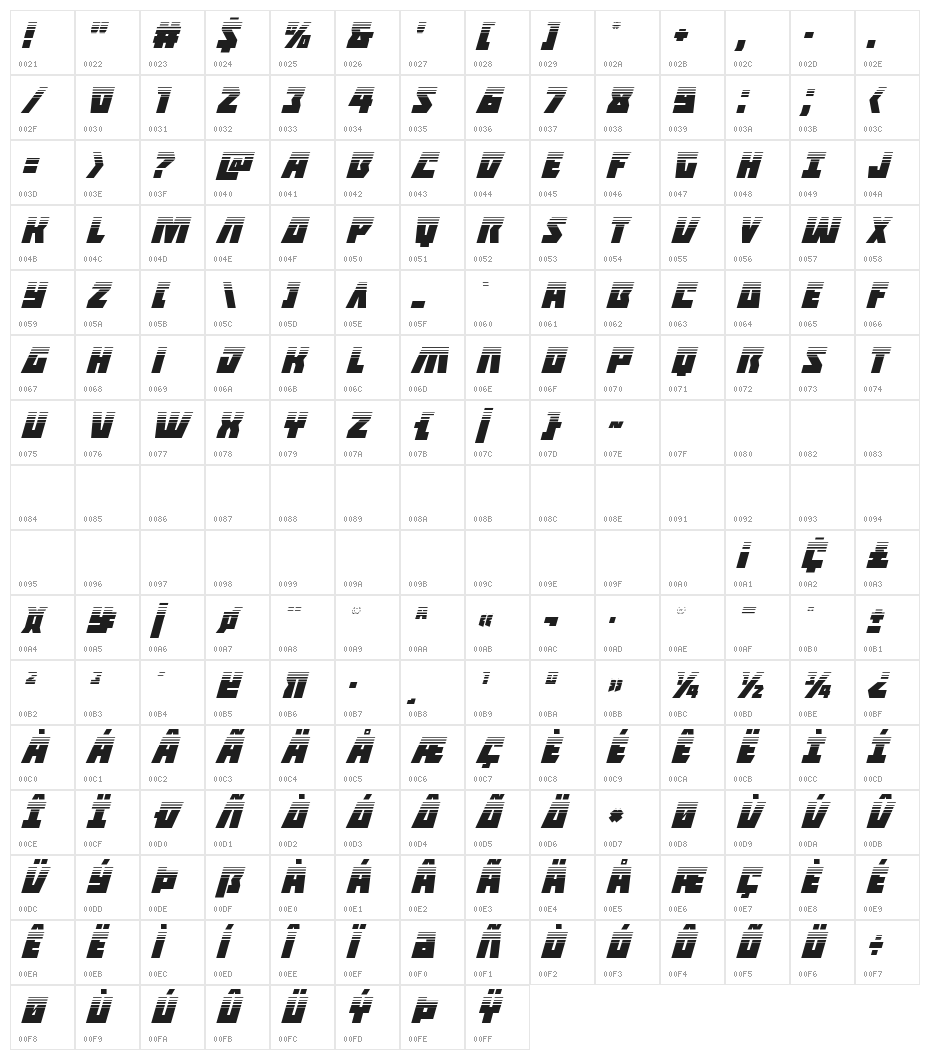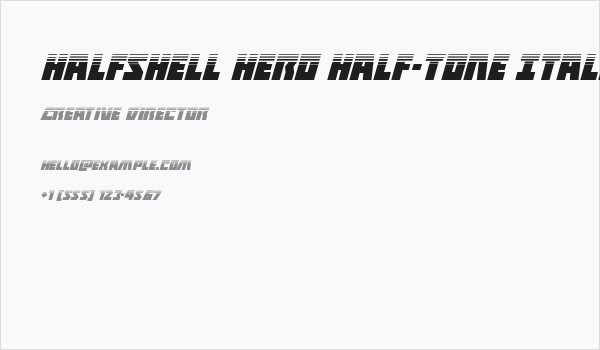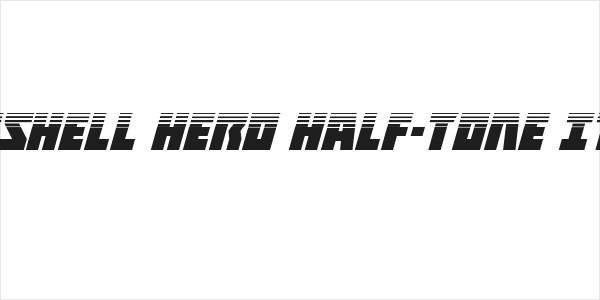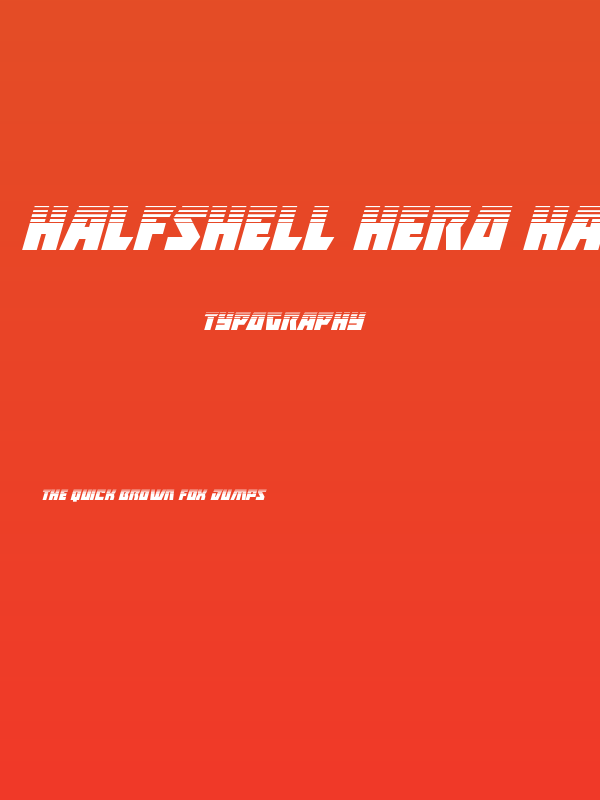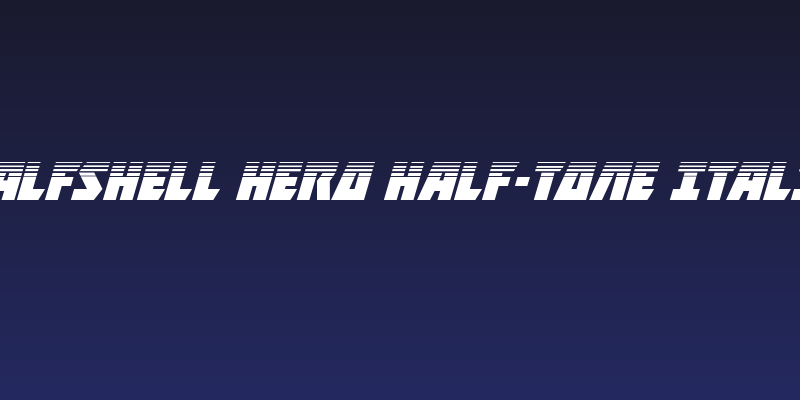
Halfshell Hero Half-Tone Italic Font
Halfshell Hero Half-Tone Italic Description
This font features a bold, dynamic style with a distinct futuristic and geometric design. The characters are italicized, adding a sense of motion and speed. Each letter is crafted with a unique half-tone effect, where the top half of the characters is composed of horizontal lines that gradually increase in thickness towards the bottom. This creates a striking visual contrast and a sense of depth. The font is highly stylized, with sharp angles and a blocky appearance, making it ideal for attention-grabbing headlines or logos. The numbers and special characters maintain the same bold and angular design, ensuring consistency across all glyphs.
| Overall Style | Futuristic, Modern |
| Proposed Projects | Ideal for sci-fi themed projects, video game titles, futuristic branding, or any design requiring a bold, modern aesthetic. |